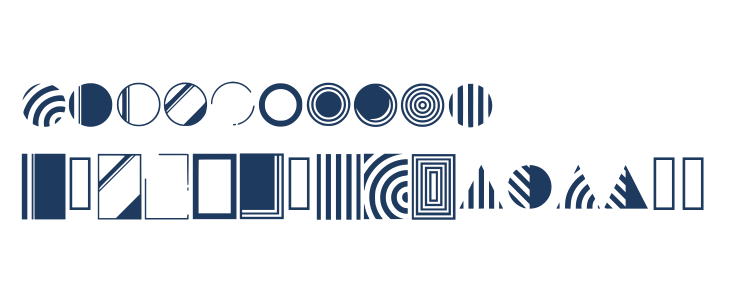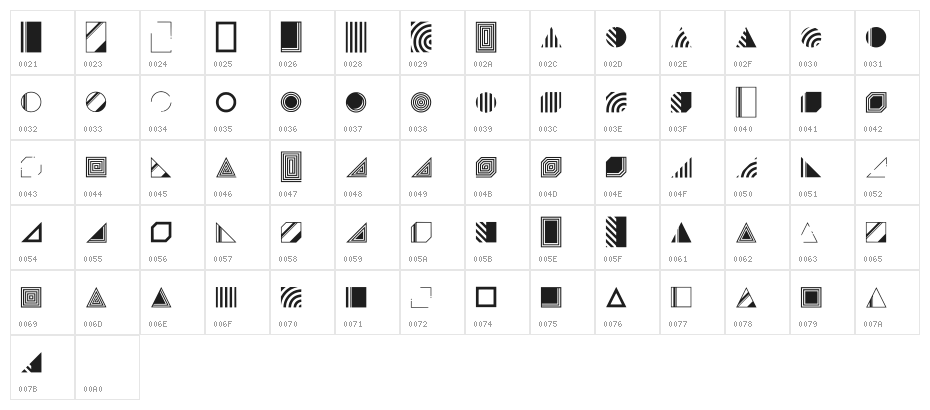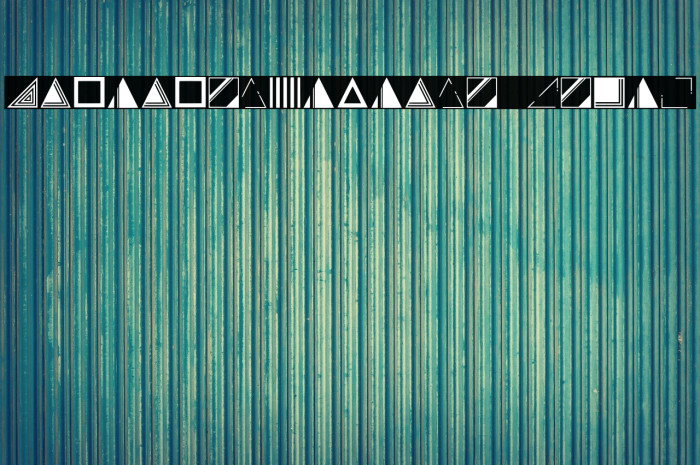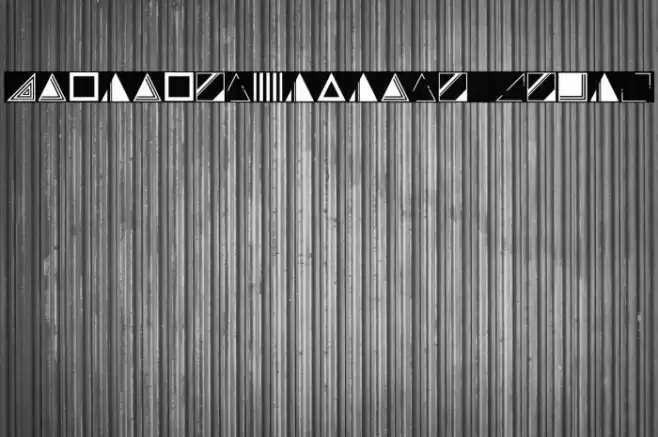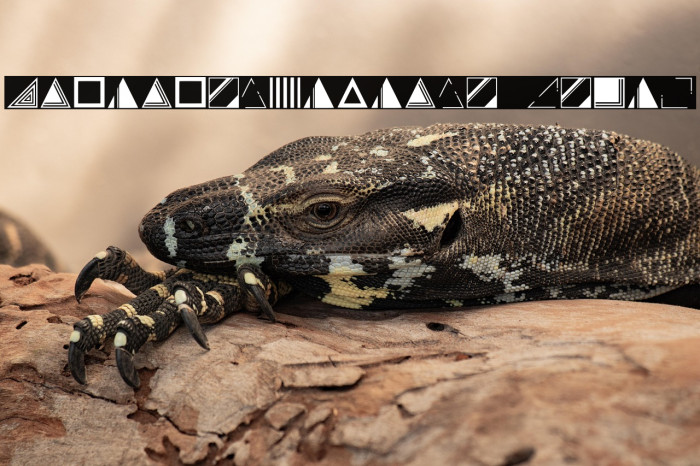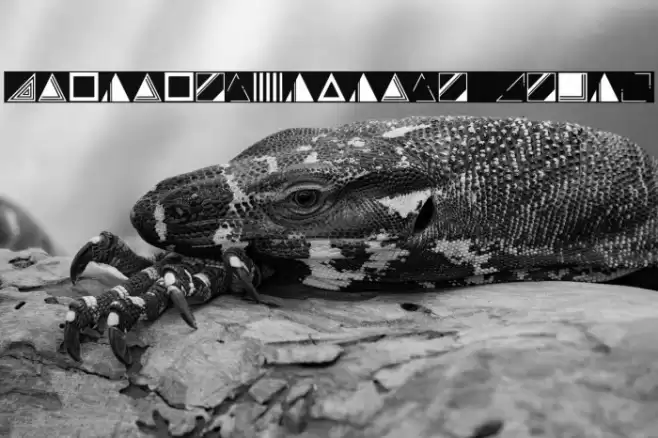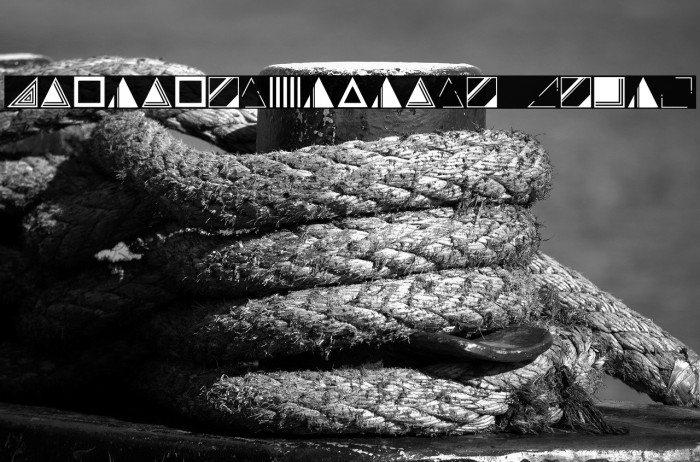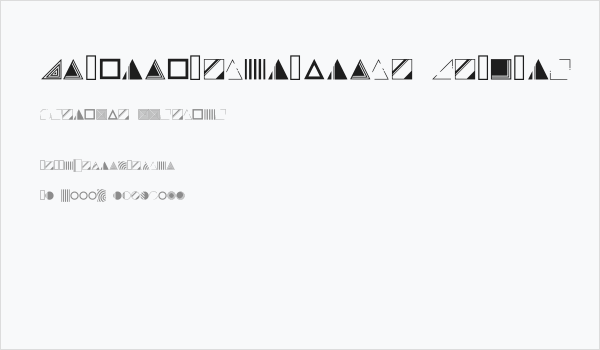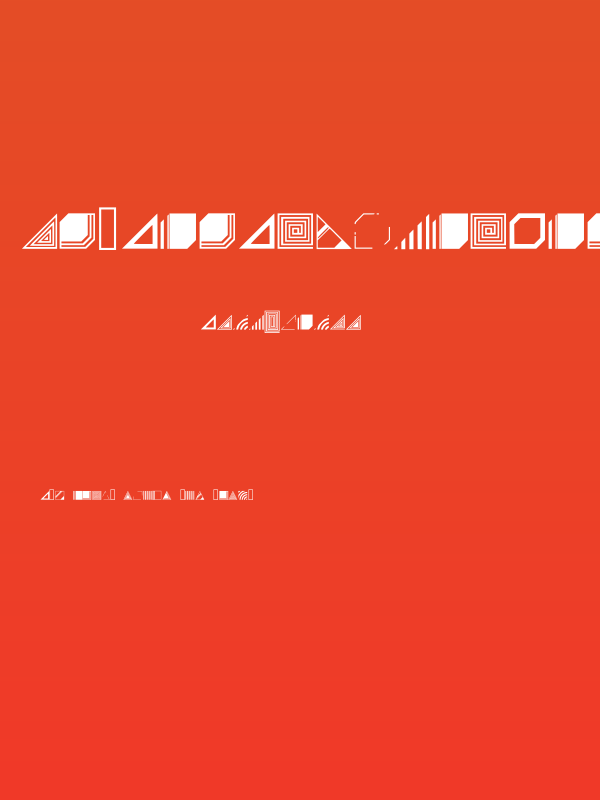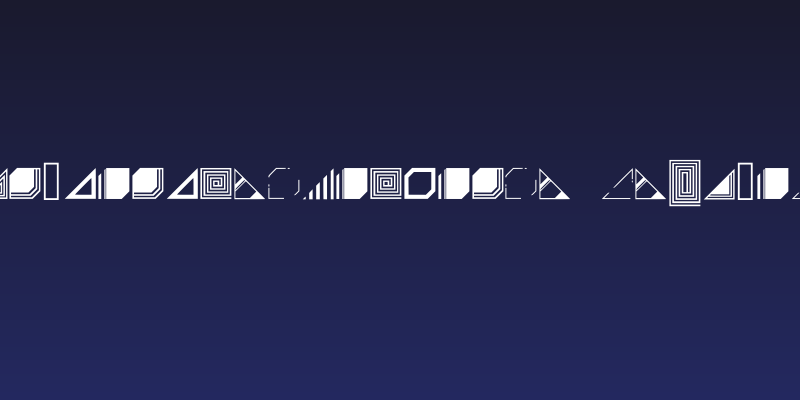
Instantdecoadvance Regular Font
Instantdecoadvance Regular Description
This font is a highly decorative and abstract design, featuring geometric shapes such as triangles, circles, and squares. Each character is represented by a unique combination of lines and patterns, creating a visually striking and modern appearance. The design is bold and artistic, with a focus on symmetry and balance. The use of negative space and varied line thickness adds depth and dimension to the characters, making them stand out. This font is not suitable for traditional text but serves as an artistic representation of letters and numbers.
| Use Case | Logos, Decorative elements, Art projects |
| Proposed Projects | Ideal for modern art projects, abstract designs, branding for creative industries, or as a decorative element in digital media. |